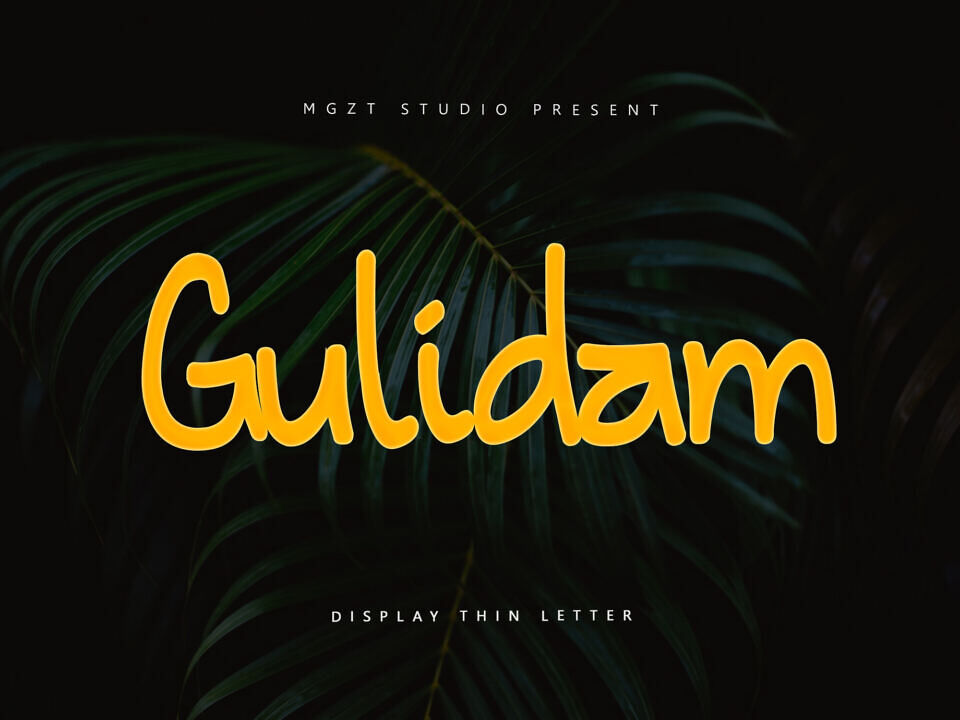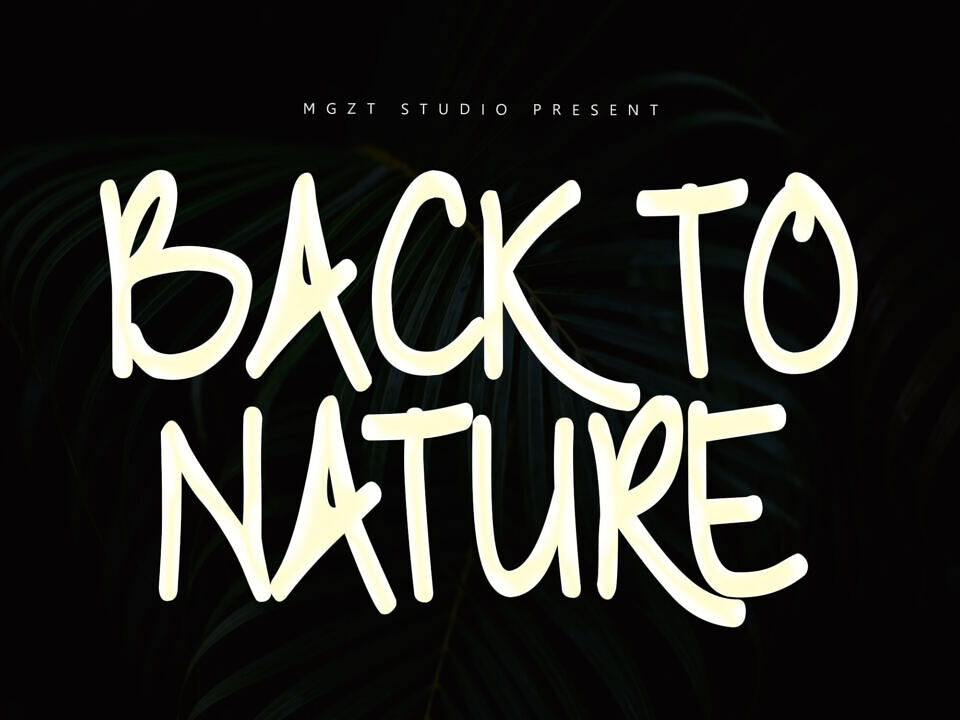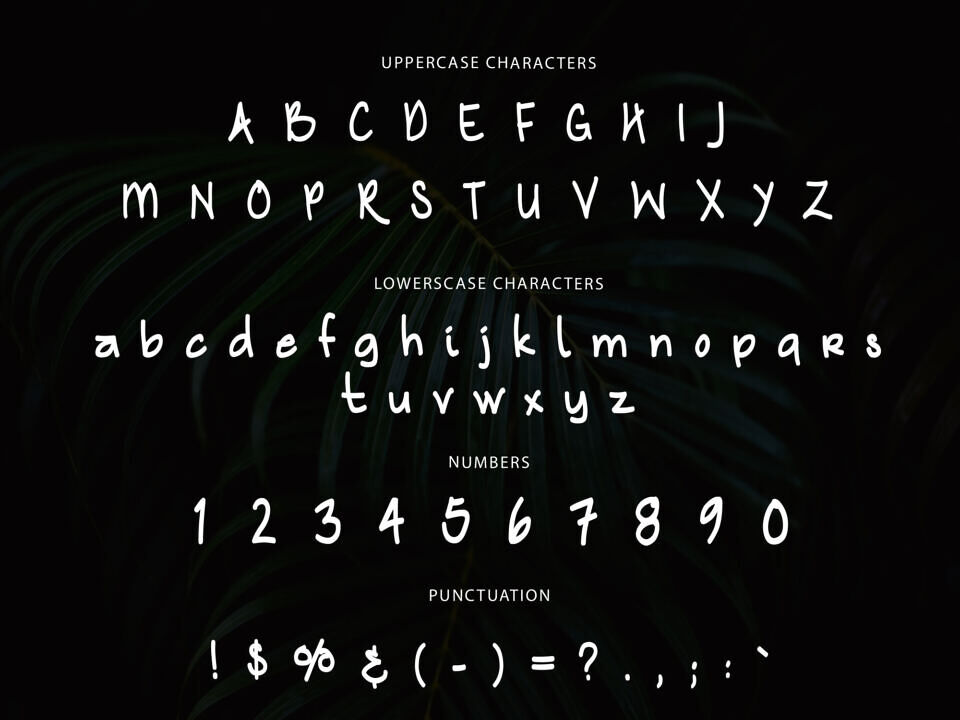
Gulidam is a handwriting display font by Magizta Craft. Its quirky shapes and cheerful vibe make it perfect for kids’ projects, playful branding, birthday invitations, school posters, and any design that needs a touch of joy and creativity. The bold outline and clean curves ensure readability while keeping a friendly, casual look.